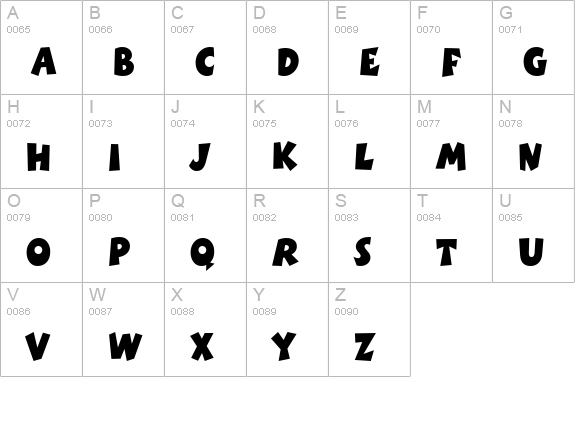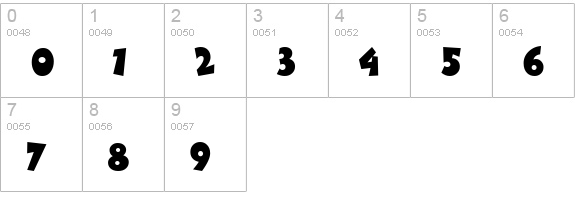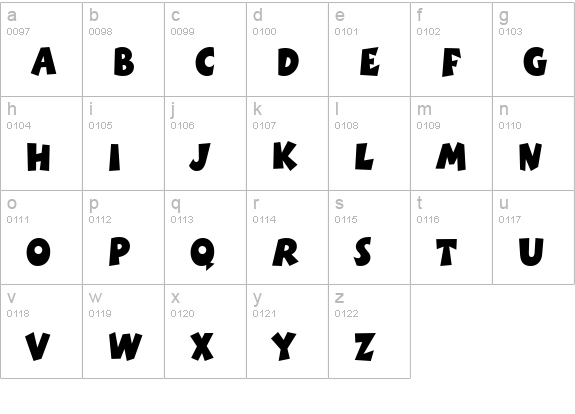
Boink LET Plain Font Details
Boink LET Plain font is a playful and whimsical typeface that exudes a sense of fun and creativity. With its bold and rounded letterforms, Boink LET Plain is perfect for adding a touch of charm to any design project. Whether you're working on a greeting card, poster, or logo, this versatile font will bring a lively and energetic feel to your work. The best part? Boink LET Plain font is completely free to download at FontsMarket.com. So go ahead and add this delightful typeface to your collection today and let your creativity soar!